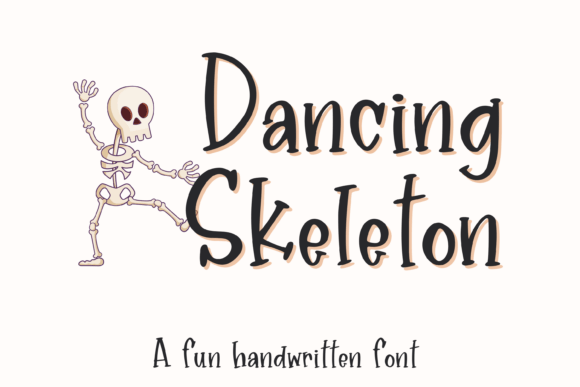
Dancing Skeleton Font: The Ultimate Halloween Handwritten Font for Spooky Projects
Are you looking for a font that captures the essence of Halloween with its playful yet eerie vibe? Look no further than the Dancing Skeleton Font, our wicked cute Halloween Handwritten font, perfect for all your spooky projects! In this article, we’ll introduce you to this meticulously crafted font, explore its features, and show you how to make the most of it in your designs.
Introducing Dancing Skeletons: A Wicked Cute Halloween Handwritten Font
Dancing Skeletons is a unique and exclusive Halloween Handwritten font that brings a touch of magic to your designs. Its fun handwriting style is sure to make your projects stand out, whether you’re creating invitations, banners, or decorations. This font is perfect for anyone looking to add a playful yet eerie vibe to their Halloween-themed crafts.
With Dancing Skeletons, you can create a wide range of projects, from spooky invitations to creepy decorations. The font’s versatility makes it ideal for use in various designs, including:
- Halloween invitations and party decorations
- Spooky banners and signs
- Creepy crafts and DIY projects
- Halloween-themed SVG files and Cricut projects
Features of Dancing Skeleton Font
So, what makes Dancing Skeletons such a special font? Here are some of its key features:
- Playful yet eerie vibe: Dancing Skeletons captures the essence of Halloween with its unique blend of playful and eerie styles.
- Handwritten style: The font’s handwritten style gives it a personal and creative touch, making your projects stand out.
- Versatile: Dancing Skeletons can be used in a wide range of projects, from invitations to decorations.
Why Choose Dancing Skeleton Font?
With so many fonts available, why choose Dancing Skeletons? Here are just a few reasons:
- Unique style: Dancing Skeletons has a unique and exclusive style that will make your projects stand out.
- High-quality design: Dancing Skeletons is meticulously crafted to ensure high-quality design and performance.
- Perfect for Halloween projects: The font is specifically designed for Halloween projects, making it the perfect choice for your spooky designs.
Tips for Using Dancing Skeleton Font
Here are some tips for getting the most out of Dancing Skeletons:
- Experiment with different sizes and colors: Try out different sizes and colors to see how the font looks in different contexts.
- Combine with other fonts: Combine Dancing Skeletons with other fonts to create unique and interesting effects.
In conclusion, Dancing Skeletons is a unique and exclusive Halloween Handwritten font that’s perfect for all your spooky projects. Its playful yet eerie vibe, combined with its versatility and ease of use, make it an ideal choice for anyone looking to add a touch of magic to their designs. Whether you’re creating invitations, banners, or decorations, Dancing Skeletons is sure to make your projects stand out.
So why wait? Get creative with Dancing Skeletons and let your imagination run wild this Halloween season. Embrace the spirit of the holiday with our remarkable Halloween Font!
- What is Dancing Skeletons? Dancing Skeletons is a unique and exclusive Halloween Handwritten font, perfect for all your spooky projects.
- Is Dancing Skeletons compatible with Cricut? Yes, Dancing Skeletons is compatible with Cricut, making it easy to use in your cutting machine projects.
- What types of projects can I use Dancing Skeletons for? You can use Dancing Skeletons for a wide range of projects, from invitations to decorations, and even creepy crafts and DIY projects.